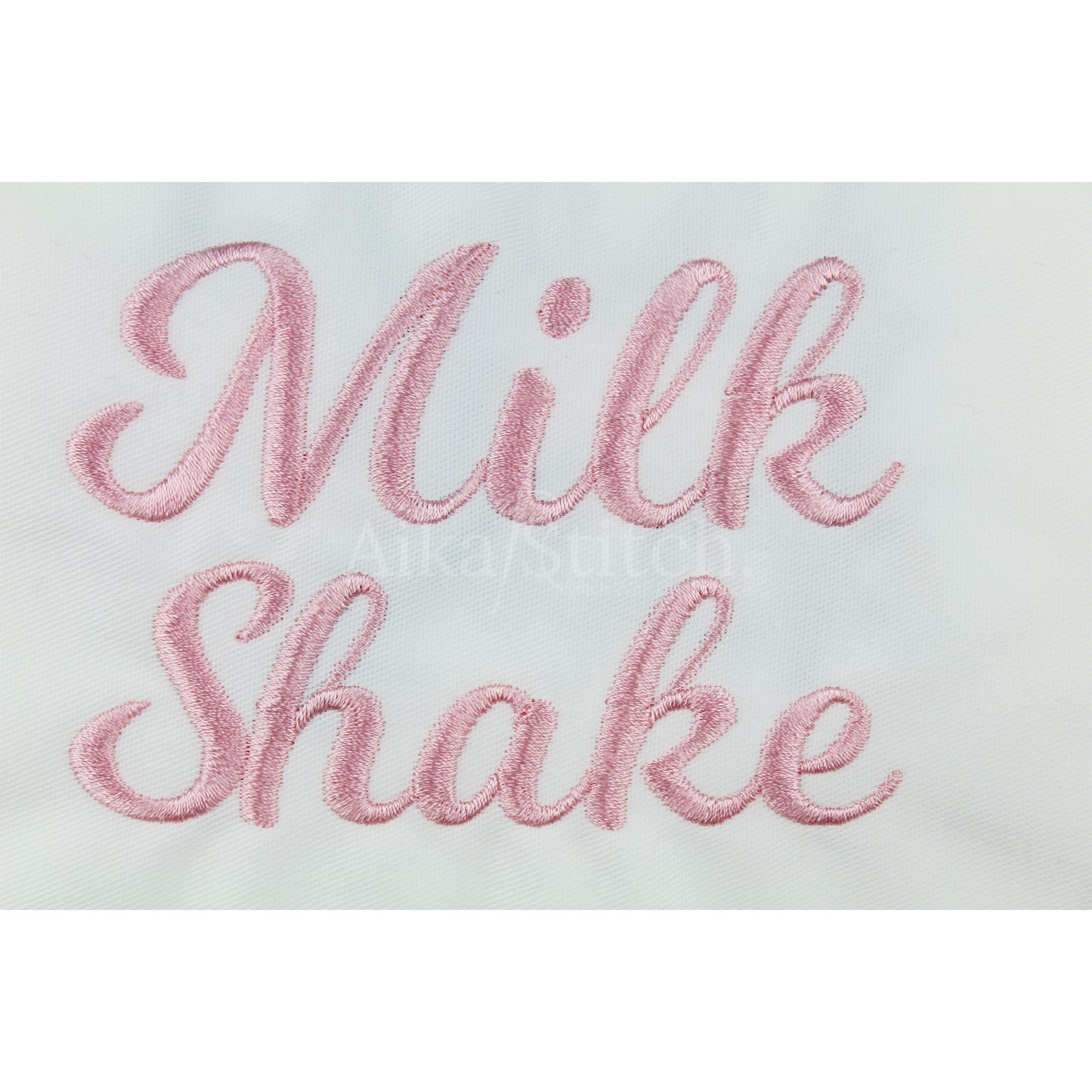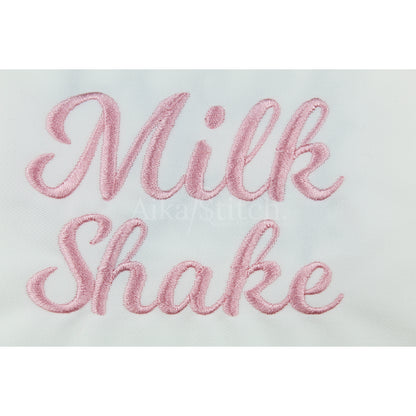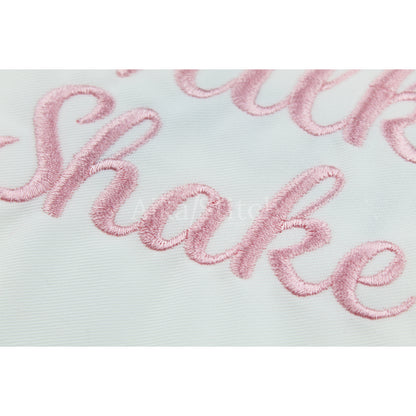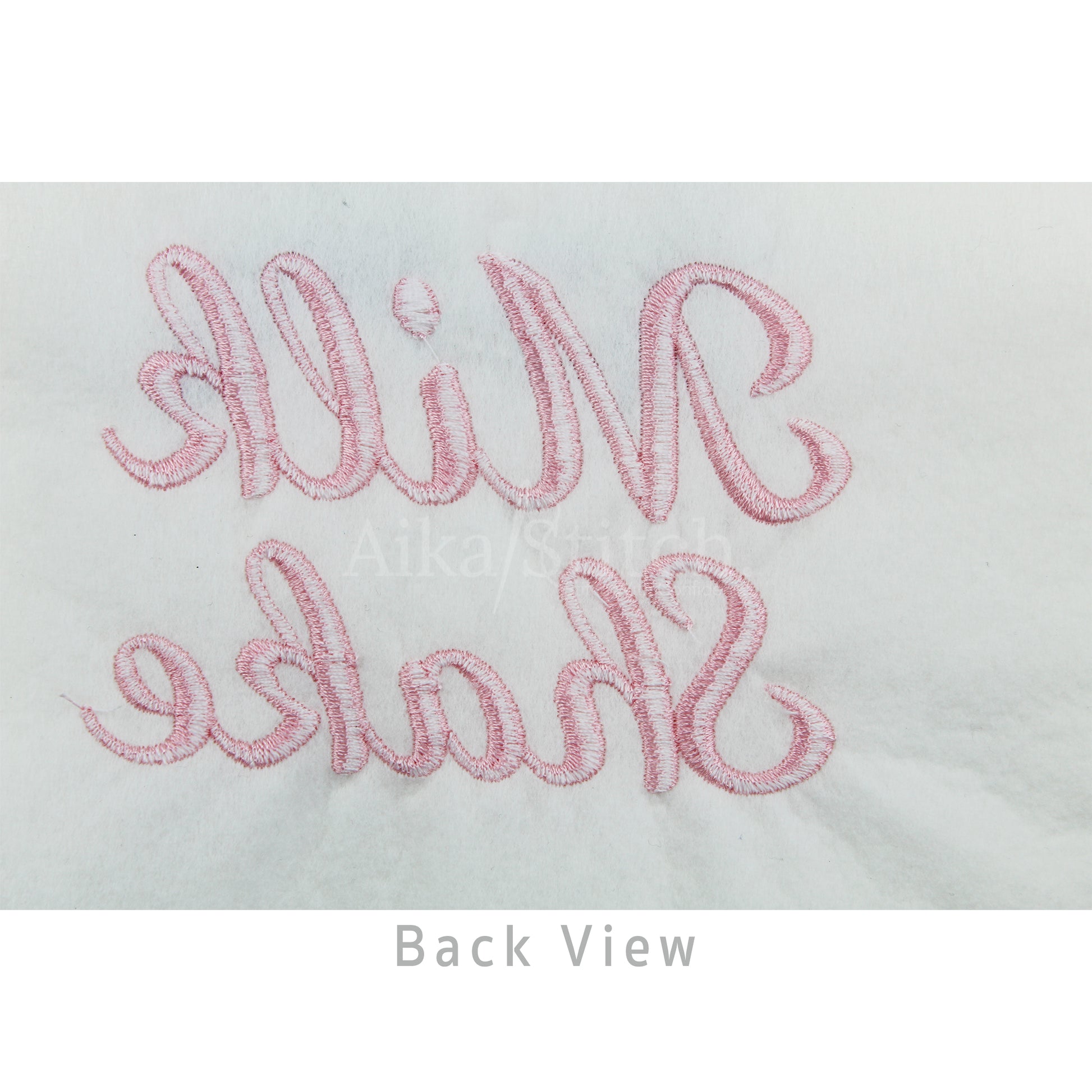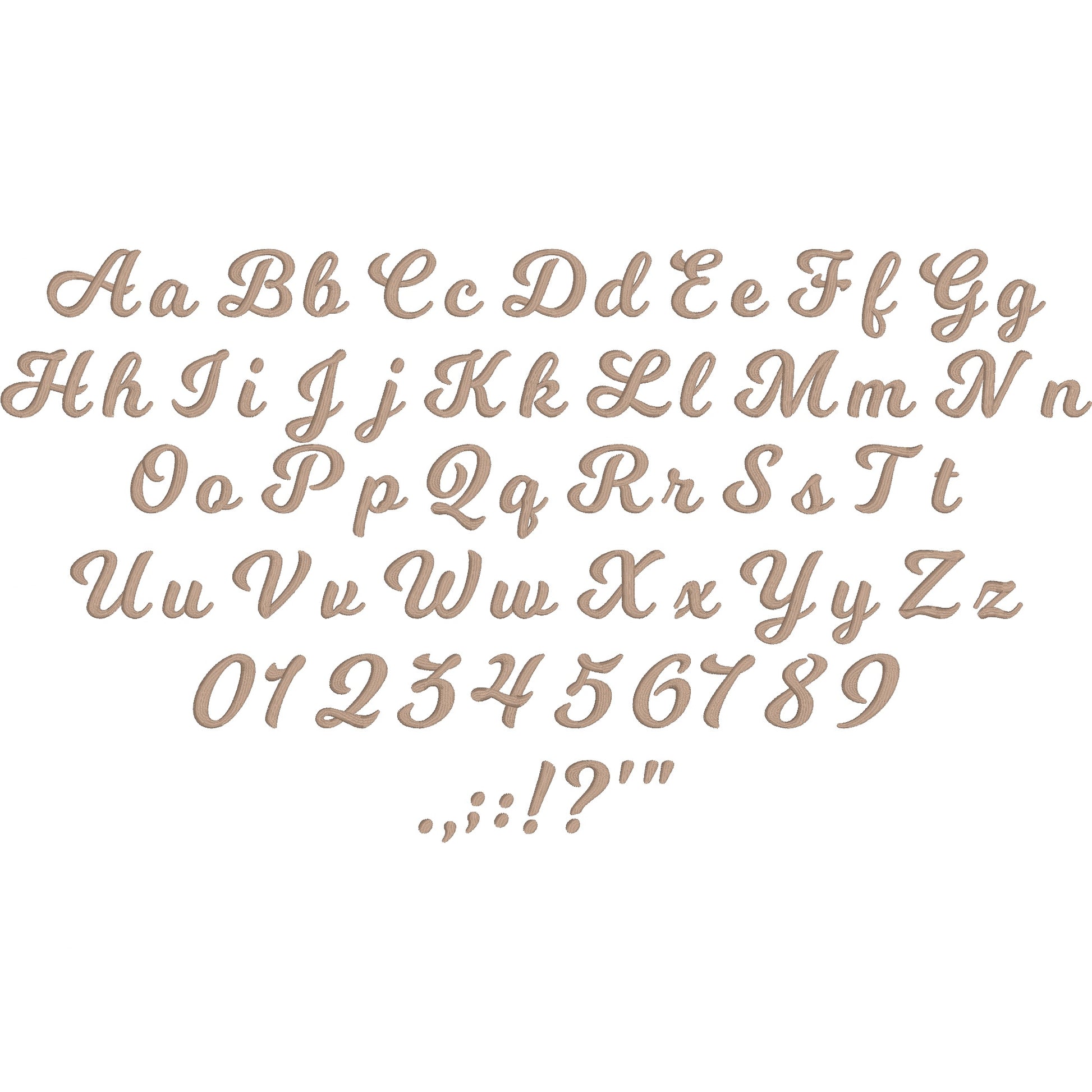
MilkShake Script Handwritten Embroidery Font
MilkShake is a Script Handwritten machine embroidery font featuring beautiful satin stitch lettering. Perfect for shirts, towels, hats, baby gifts, monograms, and small business embroidery projects.
I used this font (2&3 inch size) on a pieced quilt top. It stitched out beautifully, even over several thicker seams. It’s a nice bold script font with clear letters. (I’m picky about the letter S in script fonts!) Easy download & seamless import of BX font into embrilliance software. Would gladly purchase from this seller again.
It was a great stitch-out.
This was just gorgeous indeed.
Great for bridal items !
This font is perfect and love the stitch out. Perfect for your next project
Loved this font as a beginner!!
Very good and super pattern
truly a great embroidery font would recommend
very pretty font. this will probably my go-to for script font.
I love this font! I use it for girls and boys items.
Great font, stitched very beautifully
This design stitiched out beautifully! Used it on Christmas stockings and they were perfect I will purchase from this shop again.
Beautiful lettering! Use large fonts for bath towels.
Gorgeous design & beautiful stitch out!
The stitch out was pure perfection!
Absolutely LOVE this embroidery font. It is so beautiful. Wish I would have found it sooner. Thank you for such a beautiful product and the BX download was so simple to do. 100% satisfied and look forward to using this font often. Super highly recommend. Thank you so much.
Sews very nice. Stitching is neat.
Stitched out great! Perfect for my project!
Really good stitch out! Will buy from again.
Just tried this one! Love it!
Awesome! Love this font! It stitches well!
Stitched out well! Very satisfied!
Very pretty fonts. I used it on a memory
Pillow it turned out really pretty
This design stitched out beautifully!